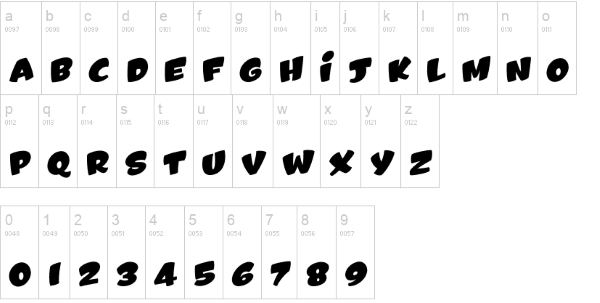
Oups Font
Oups Font is a playful display typeface with quirky shapes and a lighthearted personality. Its fun, expressive style makes it perfect for kids’ designs, posters, logos, stickers, and creative projects that need a cheerful and informal look.
➤ Font Name: Oups Font
➤ Designer: Youssef Habchi
➤ Style: Comic